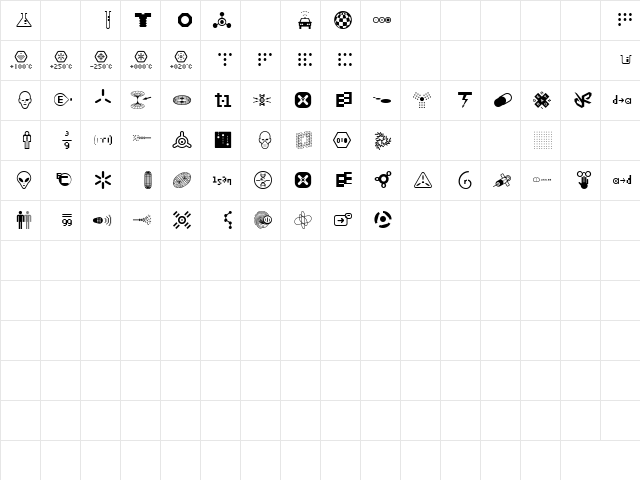
NucleusTwo Regular
Design Context for NucleusTwo Typeface
NucleusTwo is a composed and adaptable typeface that performs quietly and consistently across a wide range of design contexts.